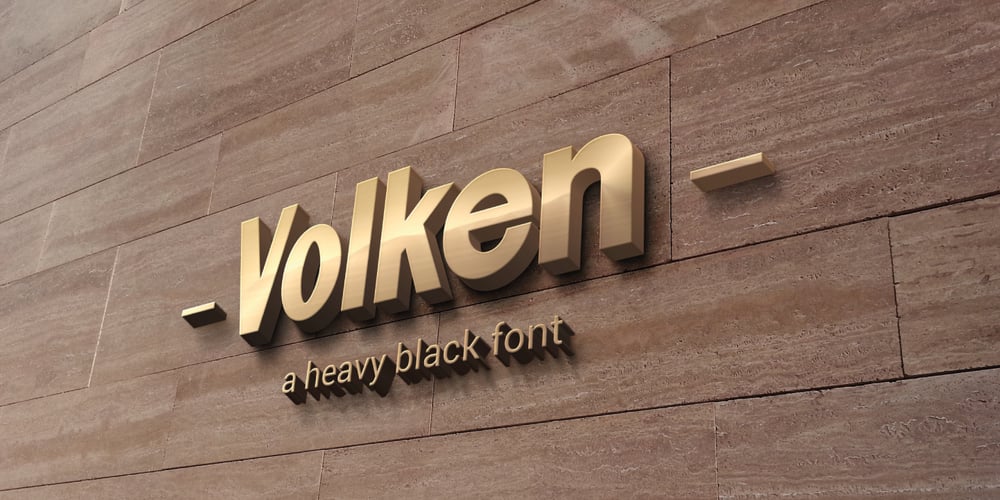
Volken
Volken font
Volken Font Family was designed by Muhammad Suhery and published by Phonnastudio. Volken contains 1 styles and family package options. Volken is a heavy bold sans-serif font. This font is perfect for various projects, clean, and easy to read. what you get:· Alphabet· Number and Punctuation· Lettering format font · Include Multilingual support.